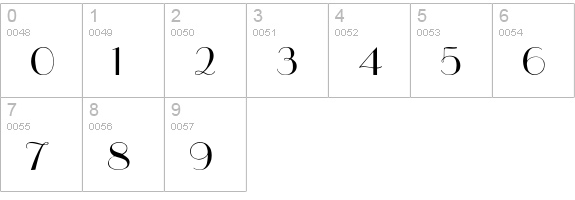
RSUpperEastSide Font Details
The RSUpperEastSide font is a sophisticated and elegant typeface that exudes a sense of luxury and class. With its clean lines and modern design, this font is perfect for adding a touch of refinement to any project. Whether you're designing a logo, creating invitations, or crafting a brand identity, RSUpperEastSide is sure to make a lasting impression. The best part? This stunning font is available for free download at FontsMarket.com. Simply visit the website and add RSUpperEastSide to your collection of premium fonts without spending a dime. Don't miss out on this opportunity to elevate your designs with the timeless beauty of RSUpperEastSide. Download now and let your creativity soar!